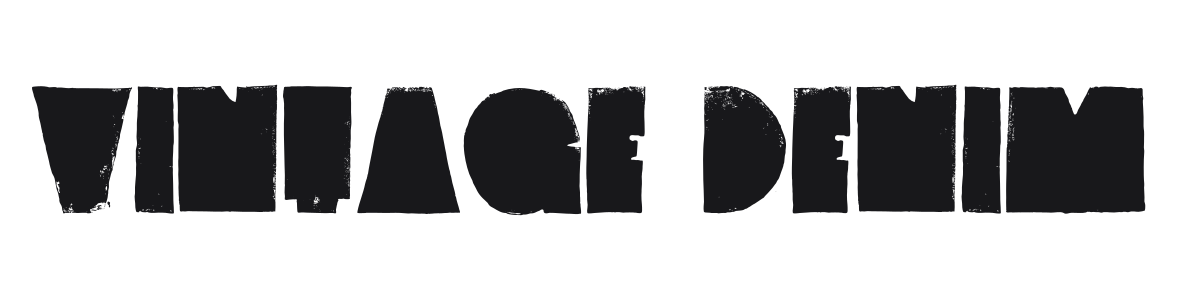
Vintage Denim
Vintage Denim is a bold, roughed-up display face from Ulrich Vinyl with heavy letterforms that look like they've been worn down through years of use. The uppercase-only character set carries visible texture and gritty edges, giving it the feel of faded ink on old workwear labels or screen-printed concert posters. Built for headlines and poster work where you want something that feels authentically beaten up rather than digitally pristine.